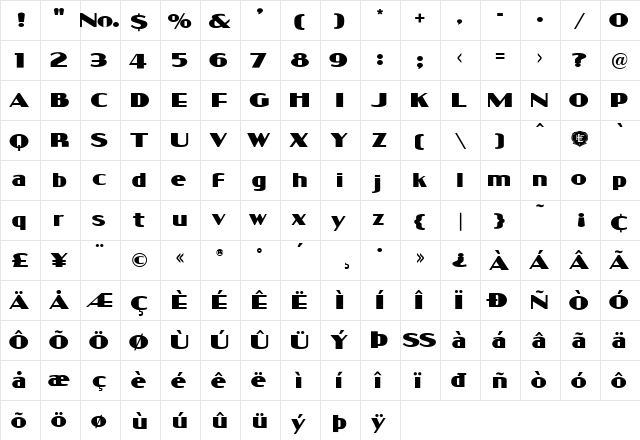
LHFBellBoy Regular
Design Context for LHFBellBoy Typeface
LHFBellBoy is a composed and adaptable typeface that performs quietly and consistently across a wide range of design contexts.